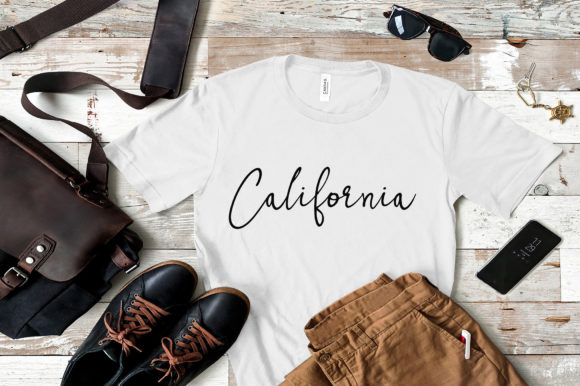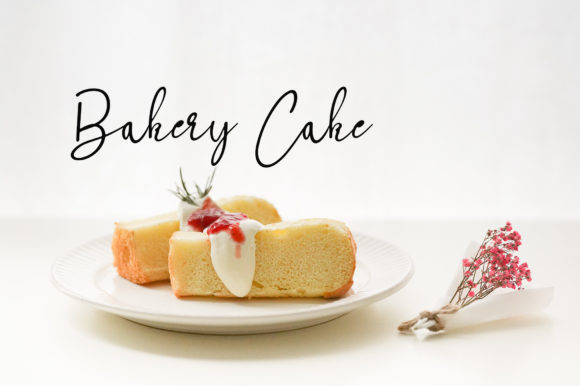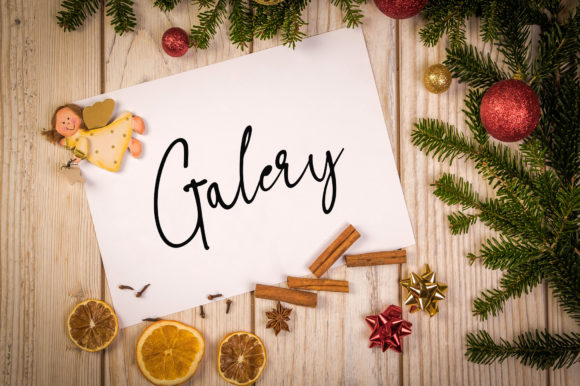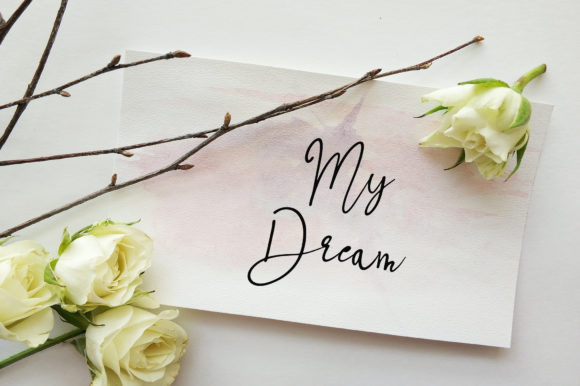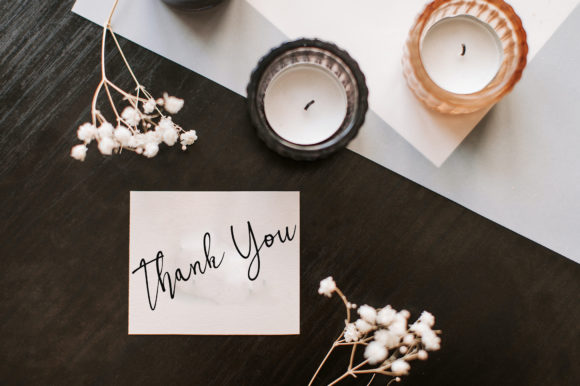
Sweet Candy Font
About Sweet Candy Font
“Sweet Candy” is a tender handwritten font meticulously crafted to achieve the desired results. This font exudes a sense of delicate artistry and attention to detail, ensuring that its use yields the anticipated outcomes. Its versatility allows it to be employed for a diverse range of products, tailored to meet specific needs.
The font’s charm lies in its handcrafted quality, which adds a personal and intimate touch to any project it’s applied to. Its delicate strokes and carefully formed characters contribute to a visually pleasing aesthetic that can enhance a variety of creative endeavors.
“Sweet Candy” has the potential to shine across a wide spectrum of applications. Whether you’re designing product packaging, creating invitations, producing quotes, or working on any form of visual communication, this font adapts to the requirements of each context.
In essence, “Sweet Candy” is a font that encapsulates careful craftsmanship and delicacy. Its handwritten nature brings a unique character to diverse projects, making it a versatile choice for designers and creators seeking to infuse their work with an element of gentle beauty.